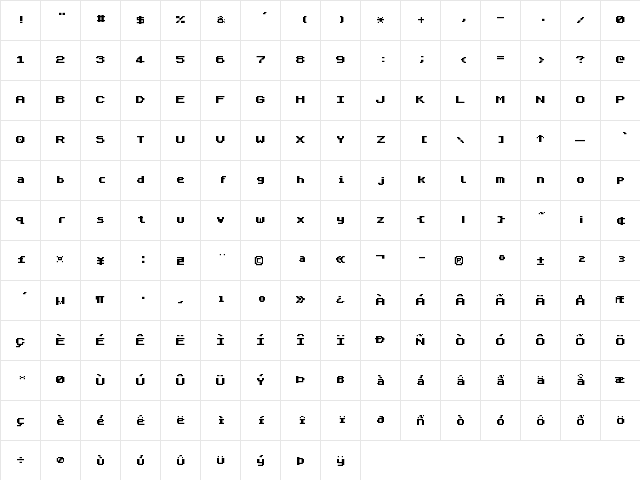
ZX Spectrum7 Bold Regular
| Foundry | Style-7 |
| Designer | Sizenko Alexander |
Design Context for ZX Spectrum7 Bold Typeface
ZX Spectrum7 Bold is a composed and adaptable typeface that performs quietly and consistently across a wide range of design contexts. Its bold stroke weight gives it real presence on the page.